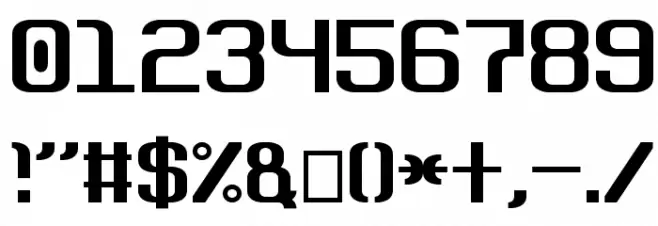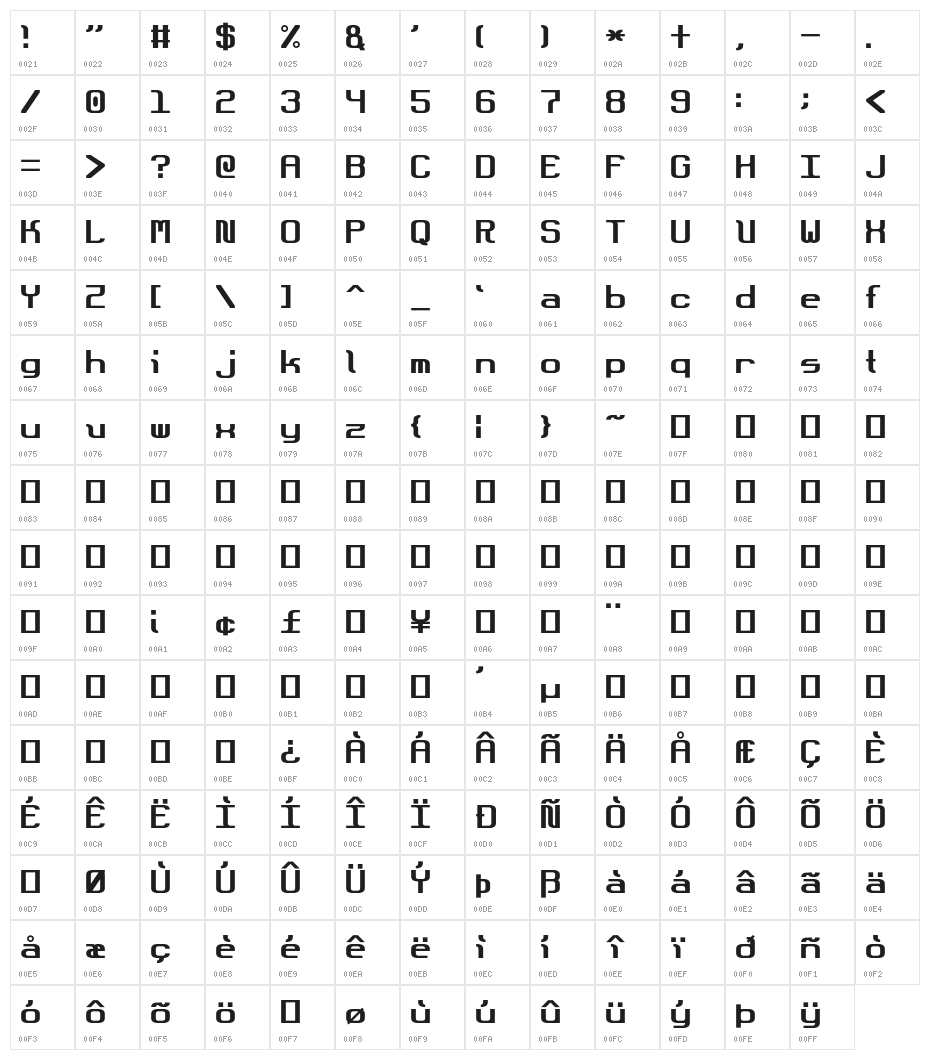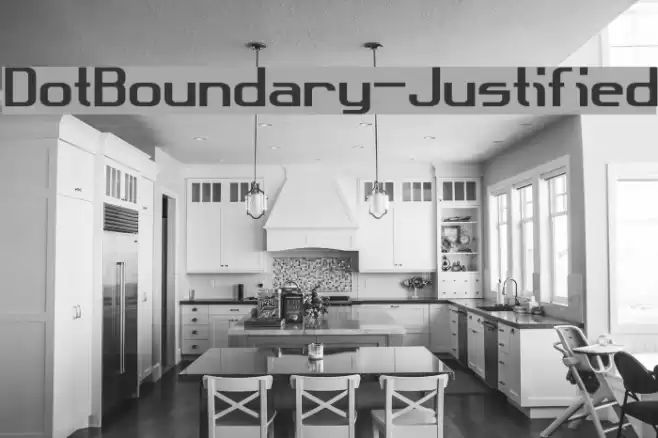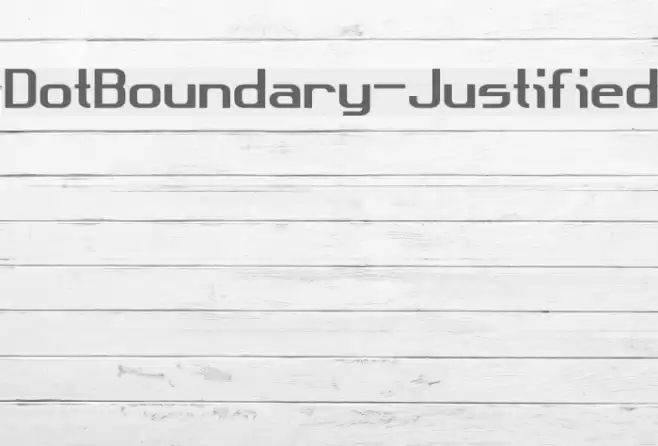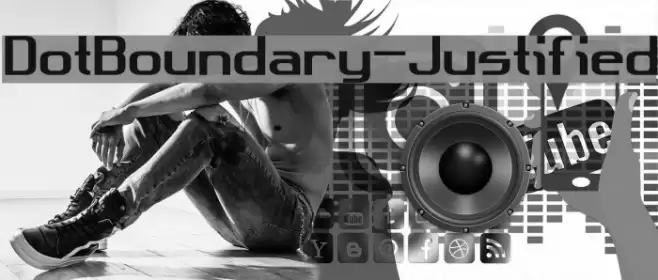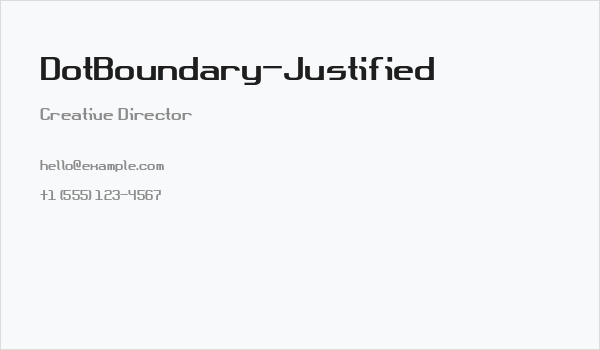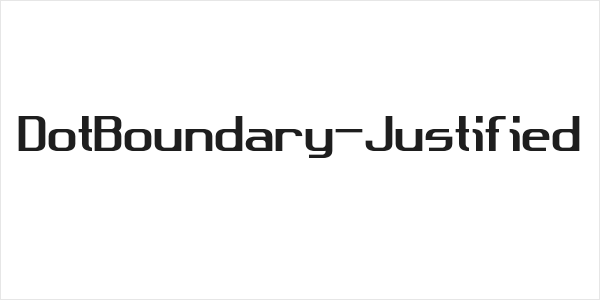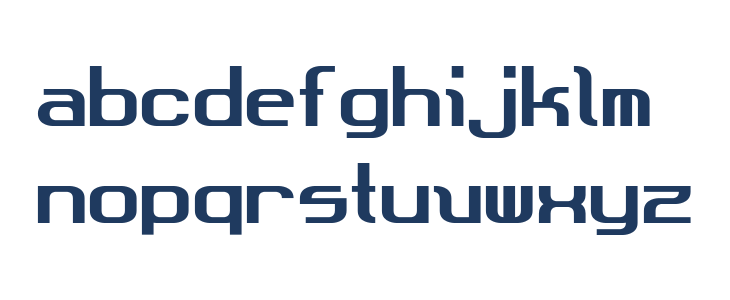
DotBoundary-Justified Font
DotBoundary-Justified Description
This font features a modern, geometric design with a strong emphasis on straight lines and angular shapes. The uppercase letters are bold and impactful, with a uniform height that creates a cohesive look. Lowercase letters maintain the geometric theme, offering a unique blend of curves and sharp angles. Numbers are designed with clarity and precision, making them easily readable. Special characters are consistent with the overall style, providing a seamless integration with the alphabet. The font's structure is clean and minimalistic, making it suitable for a variety of design applications.
| Use Case | Headlines, Logos, Digital Interfaces |
| Proposed Projects | Ideal for technology branding, modern posters, digital interfaces, and futuristic designs. |